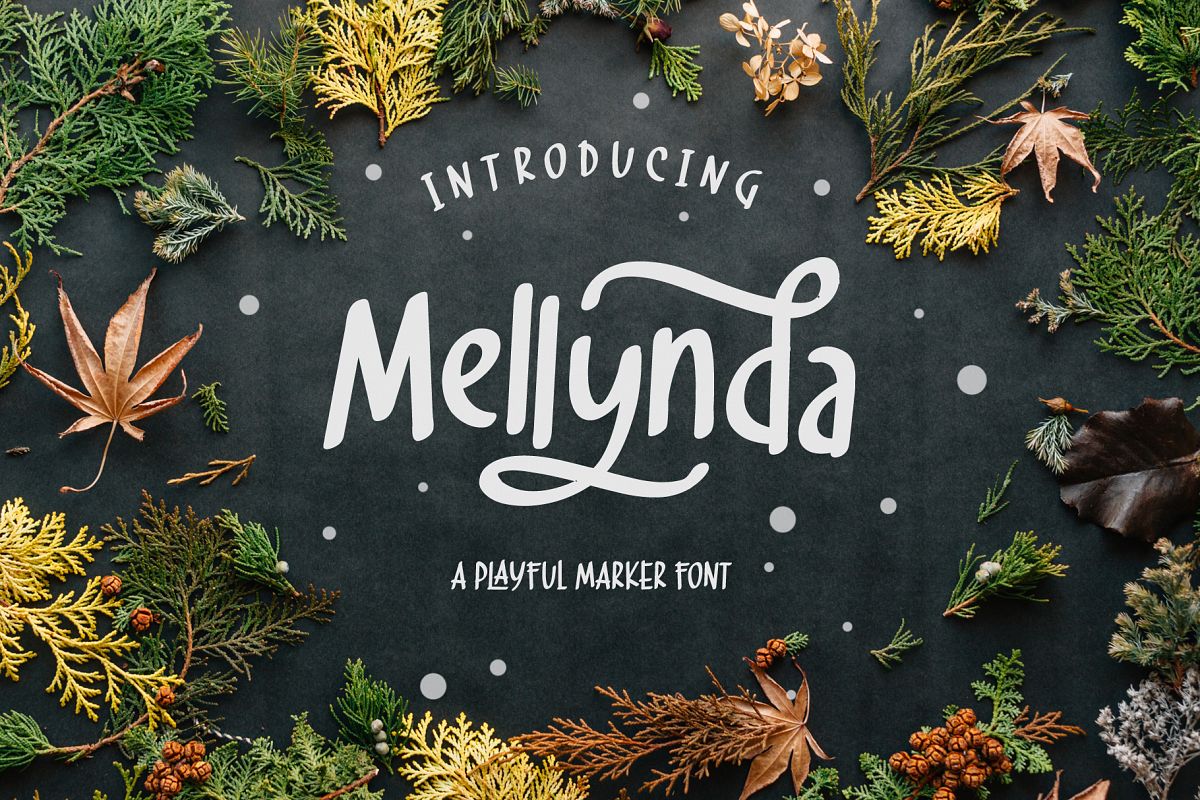
Mellynda Script
Mellynda
Introducing our new product ' Mellynda '
Inspired from childhood taste and marker scratch. The uppercase and
lowercase letters are designed to stay fit when combined in a word.
A playfully font with stylistic alternates which is based on custom
calligraphy. It's added tails and swashes to give you options in your
design.
There's 50+ custom ligatures to make it more looks flexible.
Mellynda is suitable for your quotes, design label, clothing design,
merchandise, craft design, even comic design as a body text, title, and
etc.